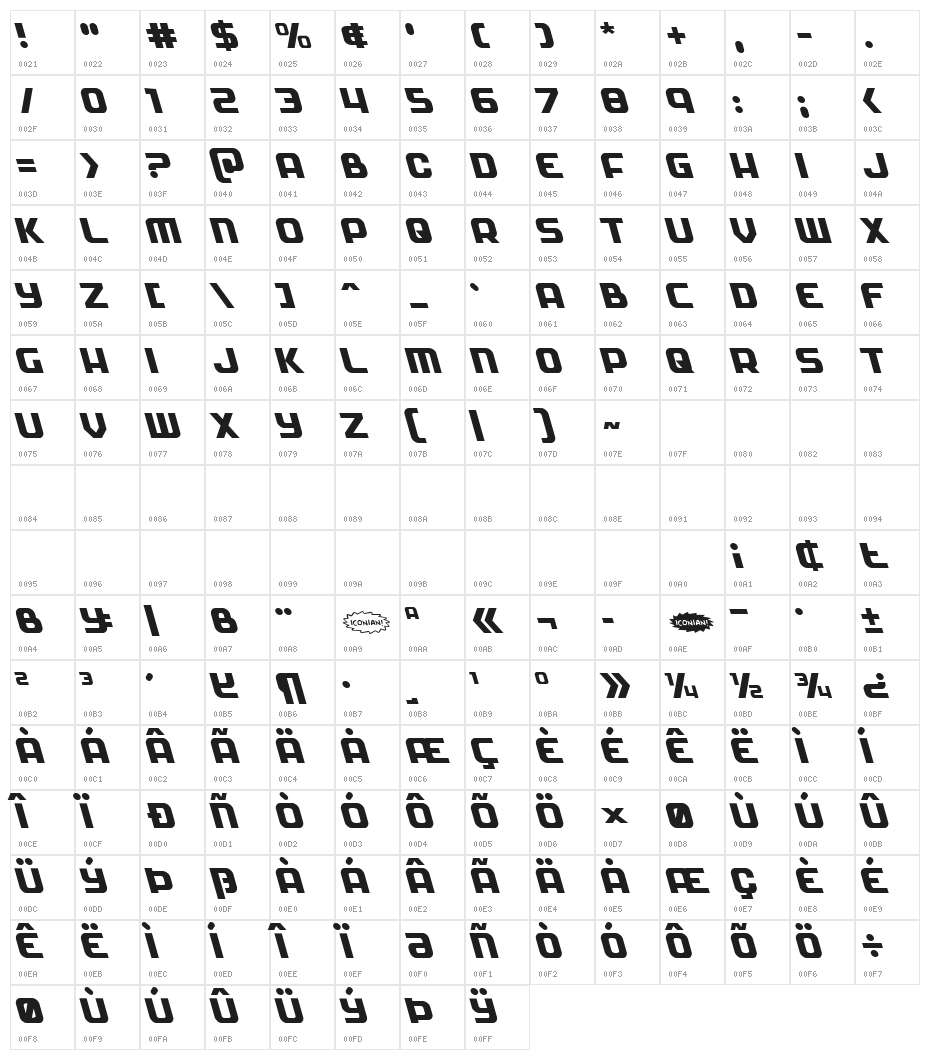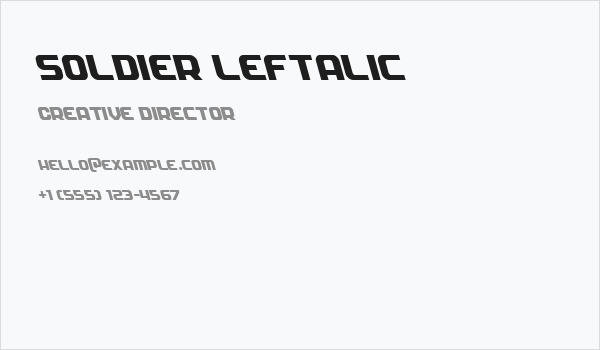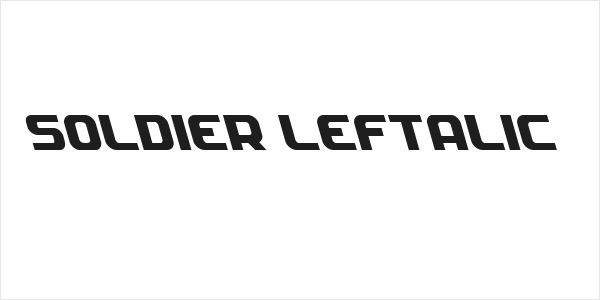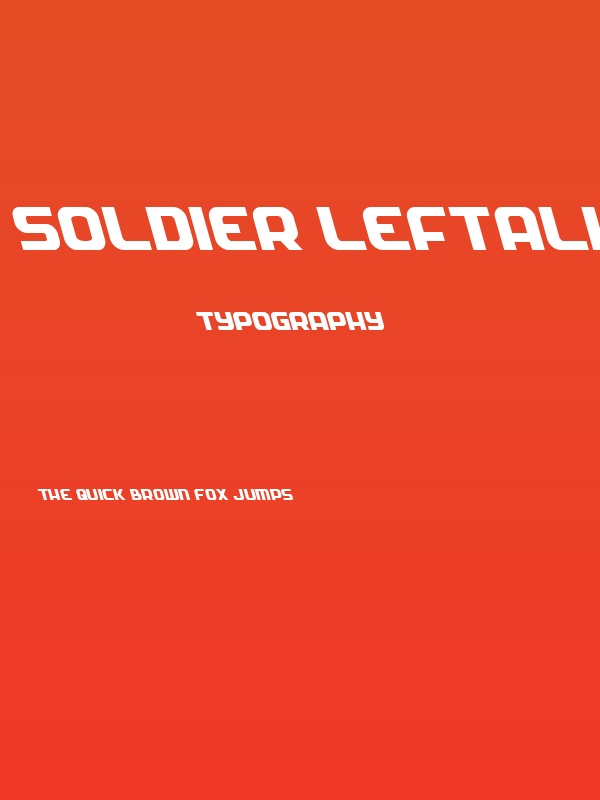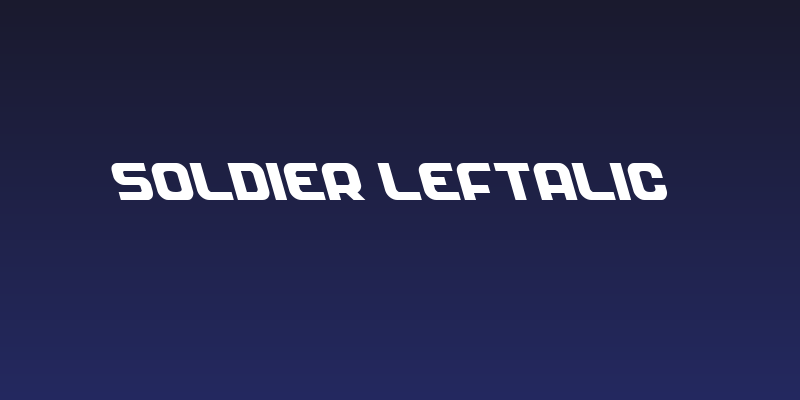
Soldier Leftalic Font
Soldier Leftalic Description
This font features a bold, angular design with a distinct slant to the left, giving it a dynamic and forward-moving appearance. The characters are uniformly thick, providing a strong and impactful presence. The uppercase letters are particularly striking, with sharp edges and a geometric style that conveys a sense of strength and modernity. The numerals and special characters maintain this bold aesthetic, ensuring consistency across all glyphs. The font's unique slant and boldness make it ideal for projects that require a strong visual impact.
| Proposed Projects | Ideal for sports branding, action movie posters, video game titles, and dynamic advertising campaigns. |